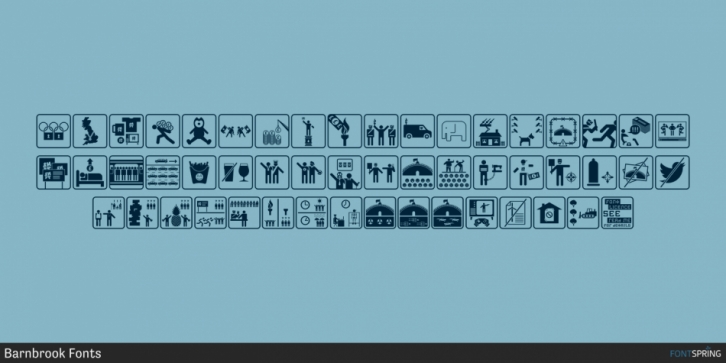
Designed by Jonathan Barnbrook and Jonathan Abbott, Olympukes 2012 is a dingbat font family. This typeface has two styles and was published by Barnbrook Fonts.
Released on the occasion of the 2012 London Olympics, Olympukes 2012 was a new set of pictograms telling the ‘real’ story of the Olympics and extending the unofficial project that began in 2004. The occasion of the London games provided an opportunity to revisit the complex contradictions of the modern Olympics and to acknowledge the geopolitical shifts of the intervening eight years.